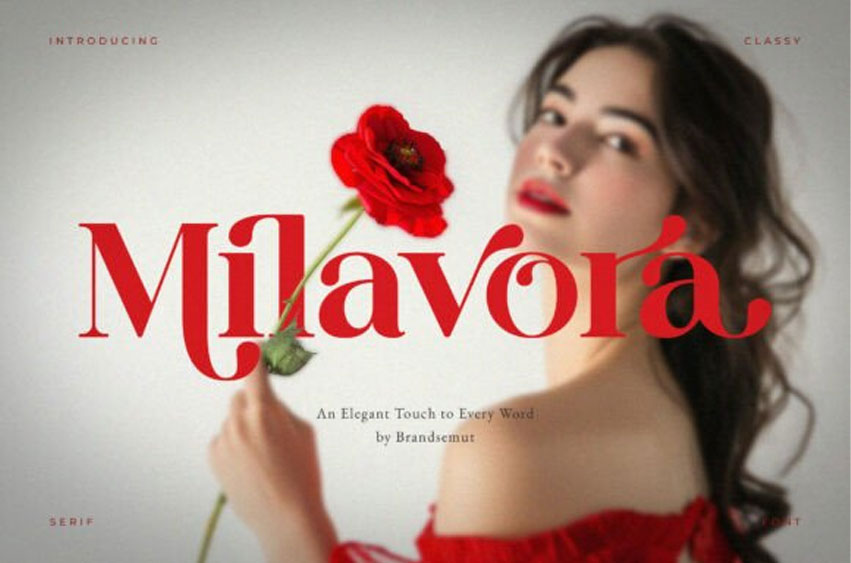
Milavora Font
Milavora Font is an elegant display serif font that radiates grace and luxury. Designed with refined curves, high contrast strokes, and stylish ligatures, Milavora is perfect for upscale branding, wedding stationery, fashion editorials, and premium product packaging.
Its timeless beauty and contemporary detailing make it ideal for any design that seeks to blend classic sophistication with modern appeal.